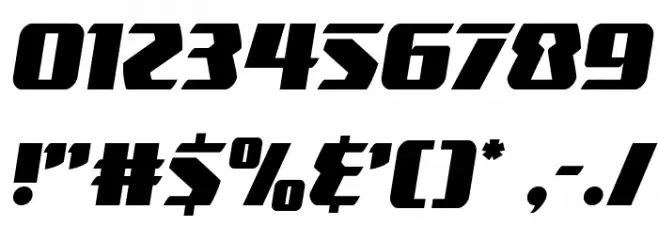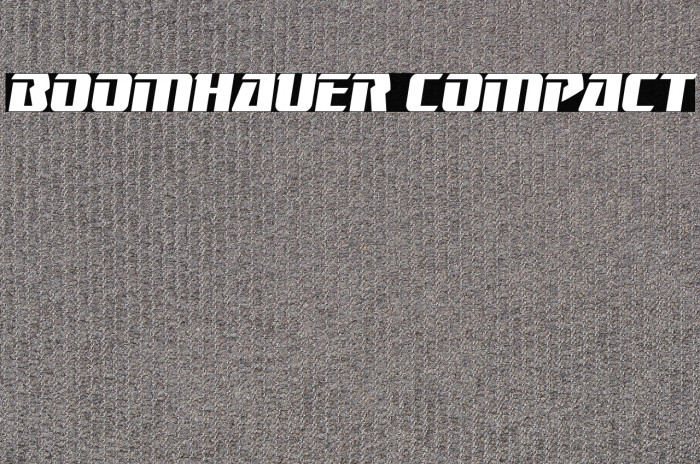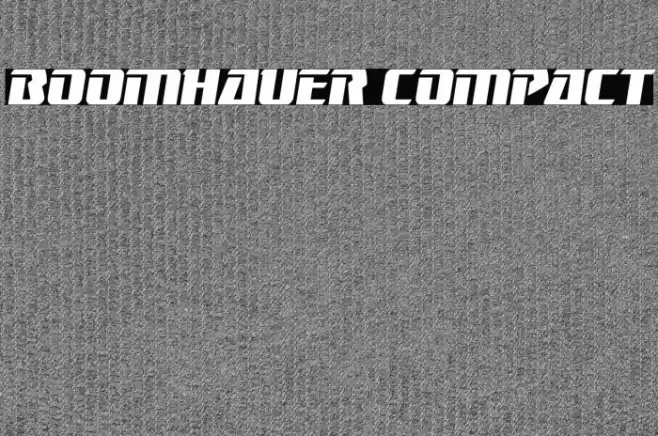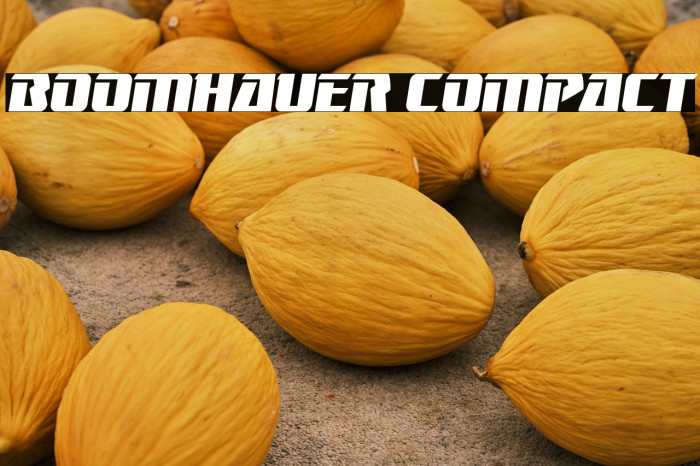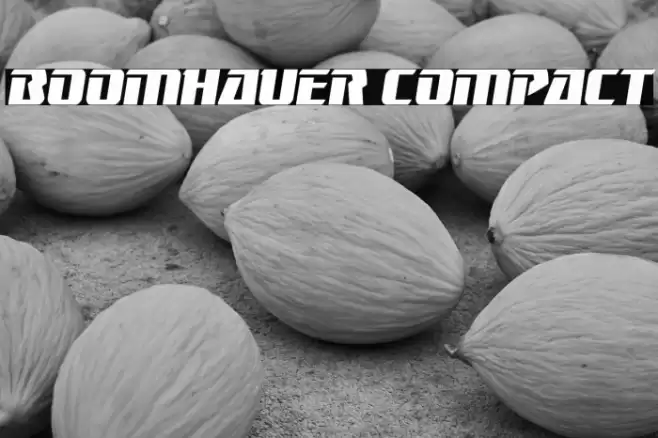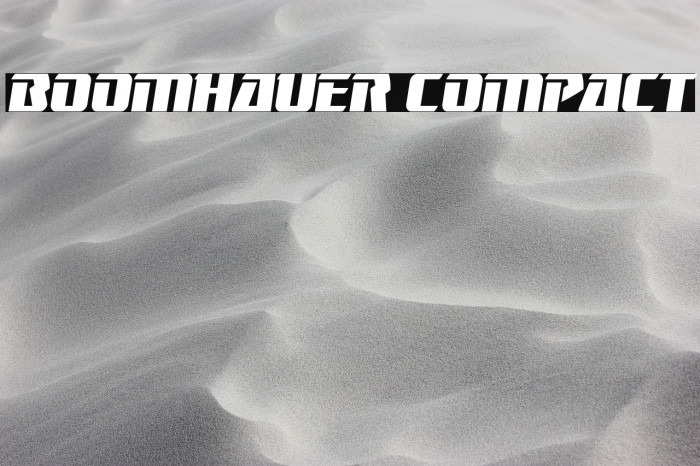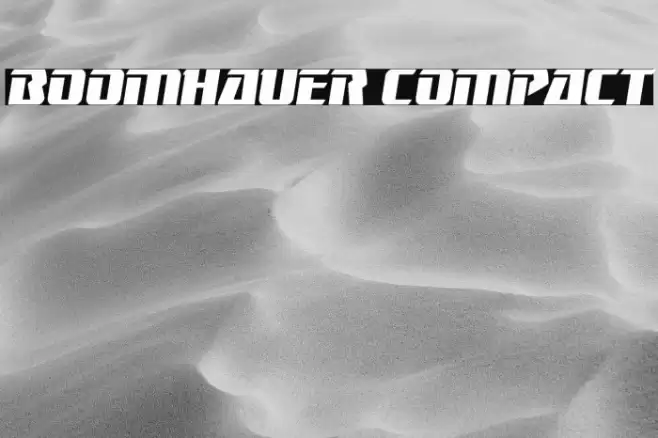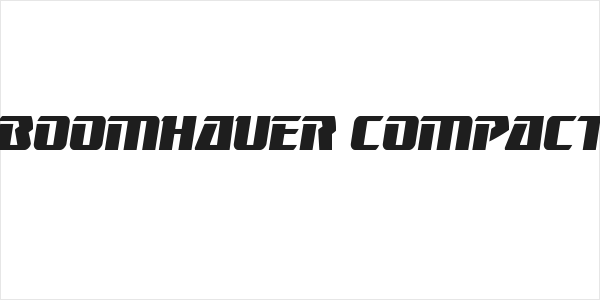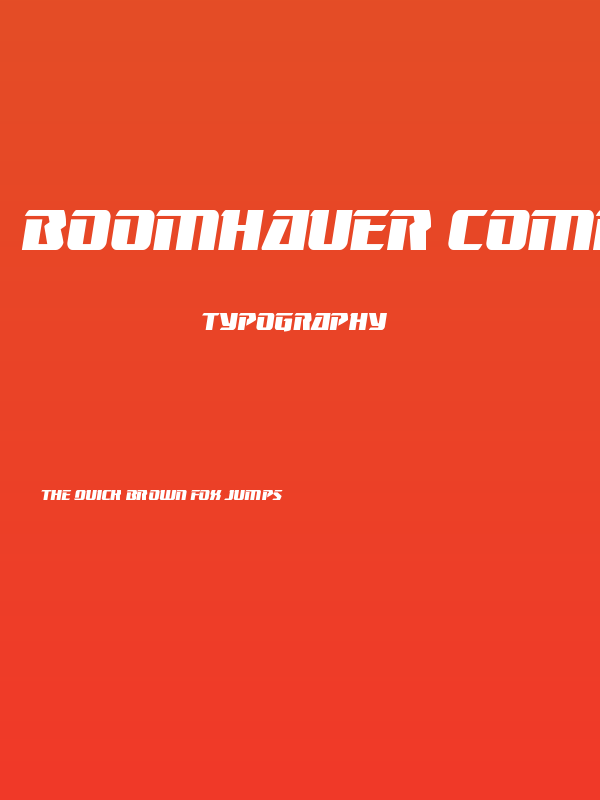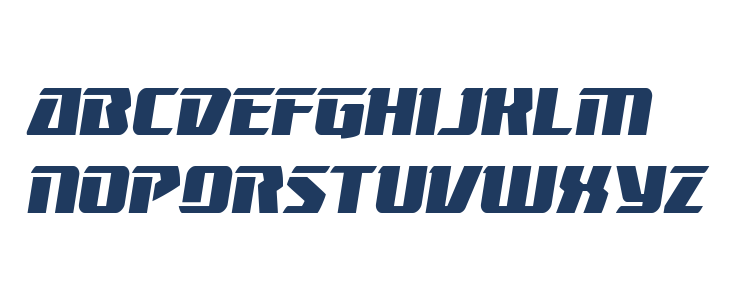
Boomhauer Compact Font
Boomhauer Compact Description
This font features a bold, angular design with a futuristic and dynamic appearance. The characters are sharply cut, with a distinct slant that gives a sense of motion and energy. The uppercase and lowercase letters maintain a consistent style, emphasizing geometric shapes and strong lines. The numerals and special characters follow the same aesthetic, ensuring uniformity across all glyphs. The font's unique style makes it stand out, ideal for projects that require a modern and edgy look.